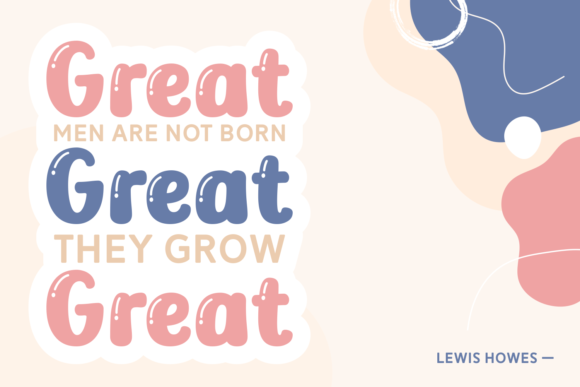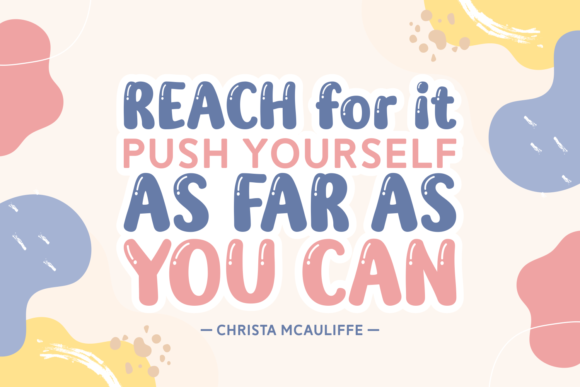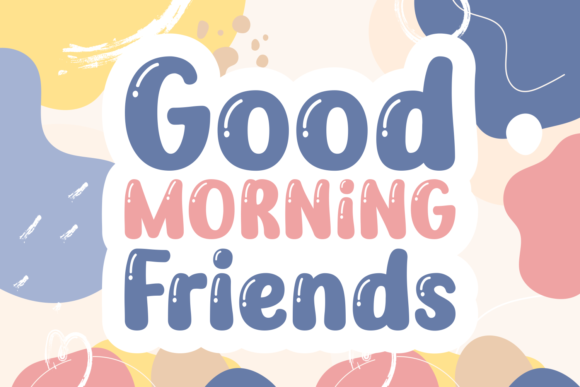
The Magical World of Beauty Bubbles Font
Have you ever been in the middle of a design project, and suddenly, you’re stuck on finding the perfect font? I recall a similar experience while working on a children’s book project. The illustrations were playful, and the text needed to match that vibe. That’s when I stumbled upon the Beauty Bubbles Font! It’s a fun, cartoon-like display font that instantly elevated my design.
An Honest Review of Beauty Bubbles Font
- ✨ Playful and bubbly design: The chubby design of the characters adds a unique touch to any project.
- ✅ Perfect for kids’ projects: The font’s friendly and approachable feel makes it ideal for school projects, posters, and children’s book covers.
- 🎨 Versatile and adaptable: Beauty Bubbles Font can be used for a variety of creative projects, from wall art to album covers.
While Beauty Bubbles Font is an excellent choice for many projects, there are a few things to consider:
- ⚠️ Legibility at small sizes: As with many display fonts, Beauty Bubbles may not be the best choice for body text or small font sizes.
- 🤔 Limited character set: While the font includes a range of characters, it may not have all the special characters or glyphs you need for a specific project.
The Backstory of Beauty Bubbles Font
Beauty Bubbles Font was designed with the intention of creating a playful and friendly font for kids’ projects. The designer aimed to craft a font that would add a touch of whimsy and fun to any design. With its chubby design and bubbly personality, Beauty Bubbles Font has become a popular choice among designers and crafters.
Q: What type of projects is Beauty Bubbles Font best suited for?
A: Beauty Bubbles Font is perfect for kids’ school projects, posters, quotes, albums, covers, books, and wall art.